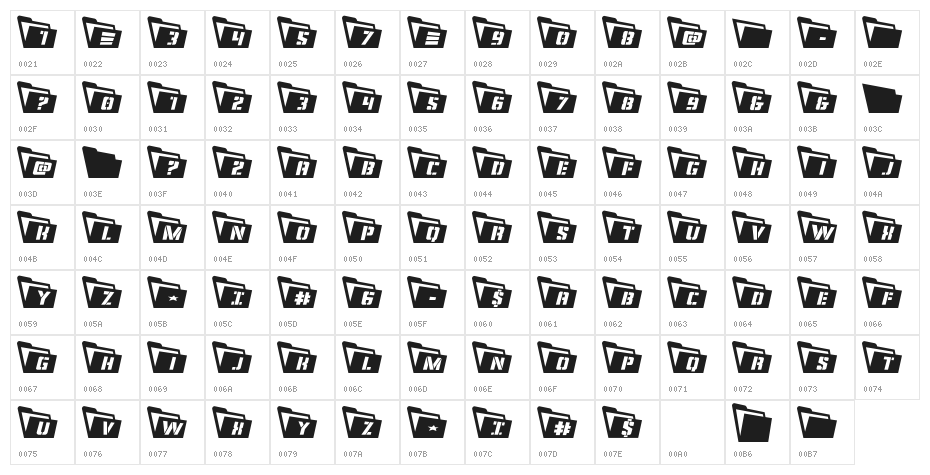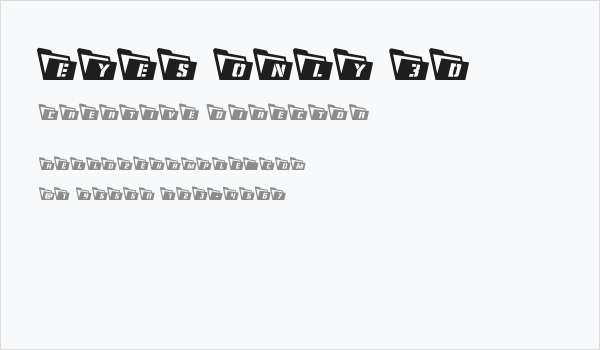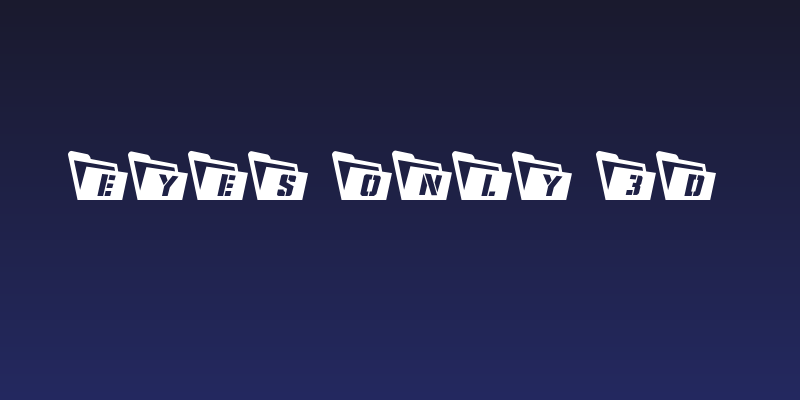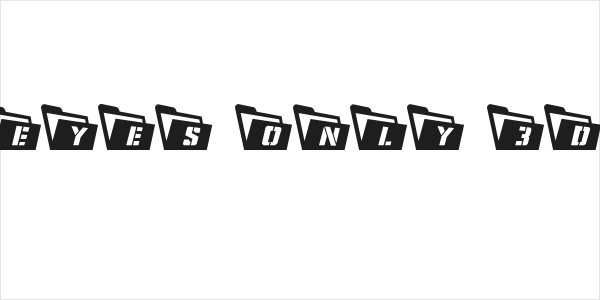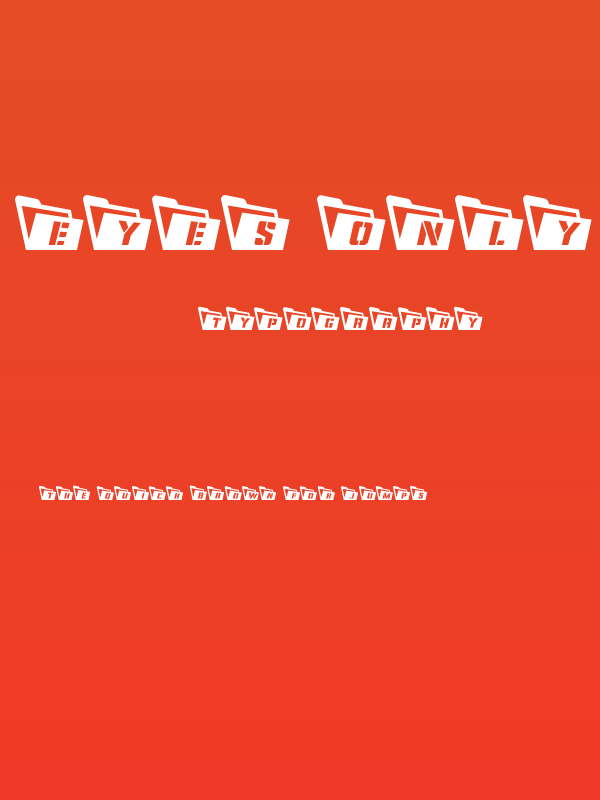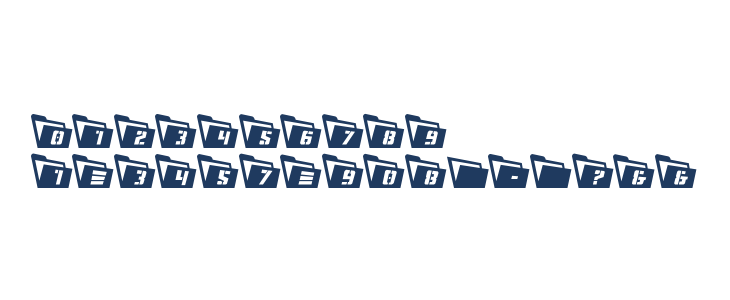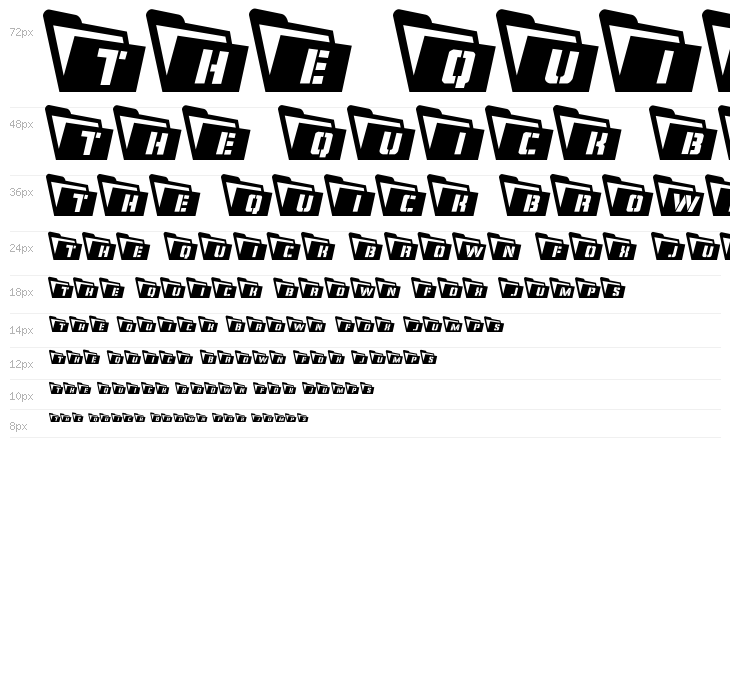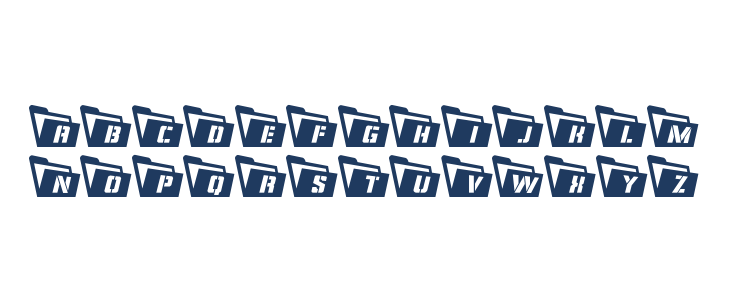
Eyes Only 3D Font
Eyes Only 3D Description
This font features a unique 3D effect where each character is embedded within a folder-like shape, giving it a distinct and modern appearance. The bold, angular design of the letters and numbers creates a sense of depth and dimension, making it stand out in any design project. The characters are uniformly styled, with a consistent slant that adds to the dynamic feel of the font. The special characters are also integrated into the folder design, maintaining the cohesive look across the entire set. This font is ideal for projects that require a futuristic or tech-inspired aesthetic.
| Proposed Projects | Ideal for technology branding, futuristic posters, video game titles, and digital media projects. |